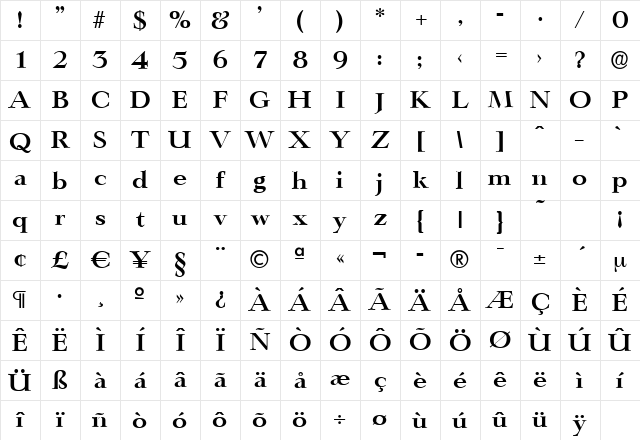
PhillipBecker Bold
Design Context for PhillipBecker
PhillipBecker is a composed and adaptable typeface that performs quietly and consistently across a wide range of design contexts. Its bold stroke weight gives it real presence on the page.
Pro Tip: Use PhillipBecker in both headline and body roles to test its range before committing to a single application.